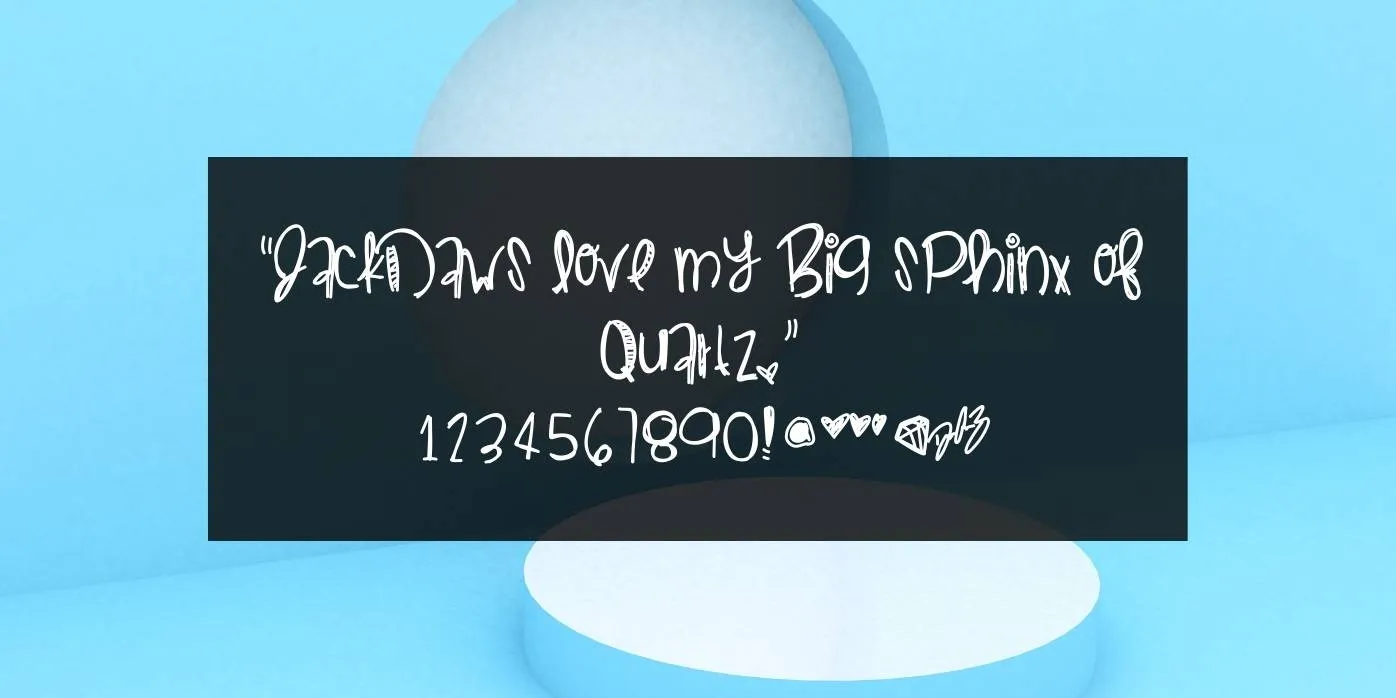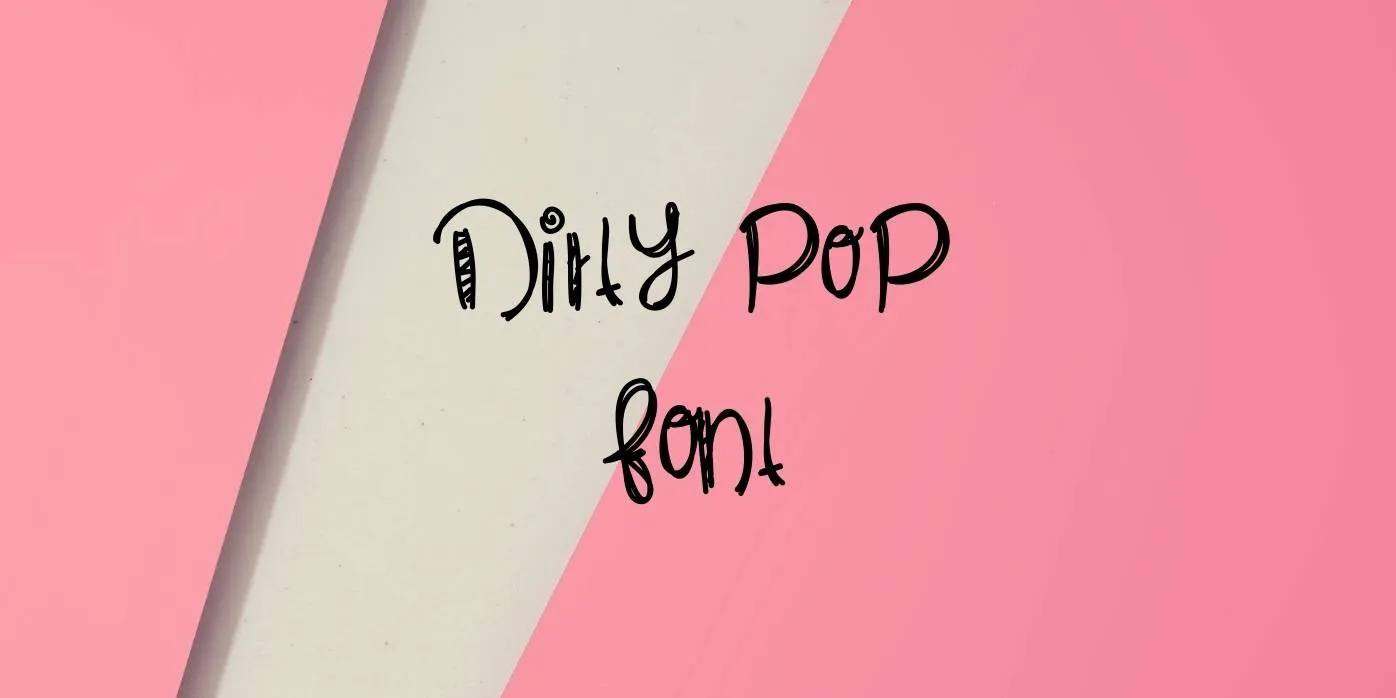
Dirty Pop Font
Dirty Pop Font designed by Des Gomez. This family belongs to the fancy font family. The shapes of the letters in this font are based on the popular ‘dirty’ style of typography. You can utilize this family for CSS and HTML languages.
This typeface comes in different styles like Rough, Clean, and Decorated. You can use this font for various purposes like headlines, titles, logos, posters, and more. Its copy and paste function is perfect for creating designs in a snap. This family is best for Adobe and Canva.
If you’re looking for a dirty pop font, then Dirty Pop is a perfect choice. The generator tool of this family is perfect for all interesting designs.